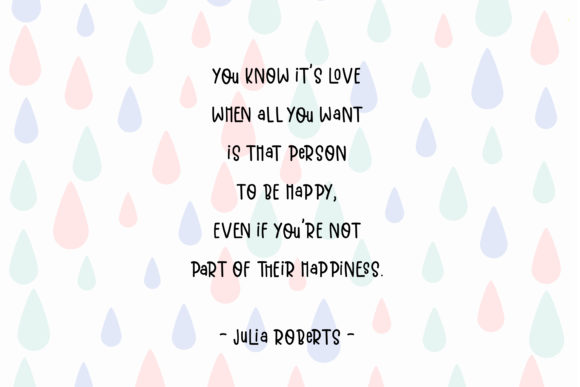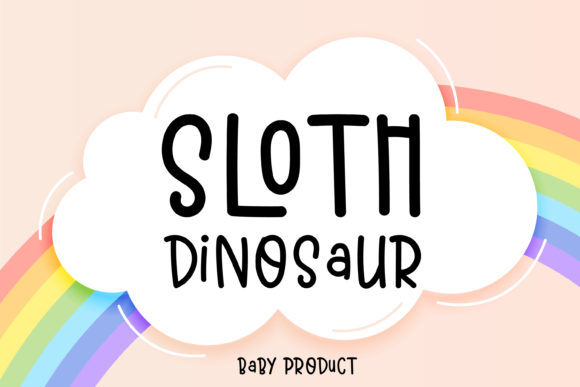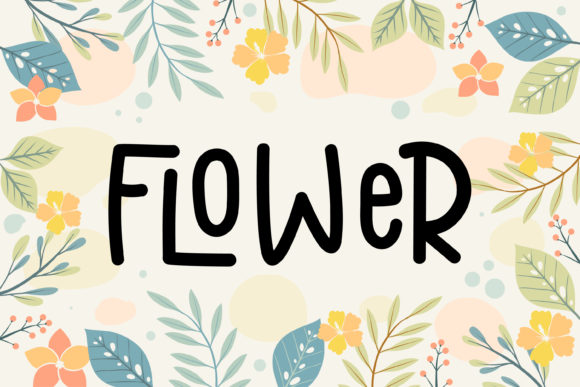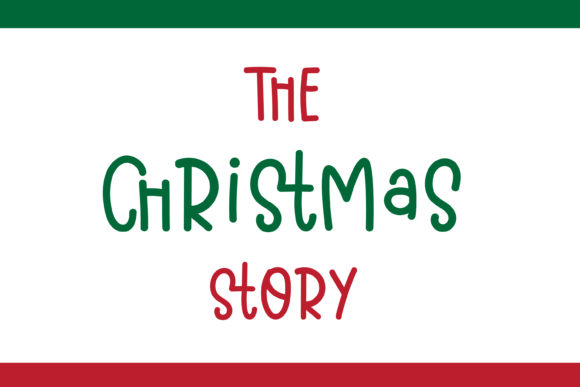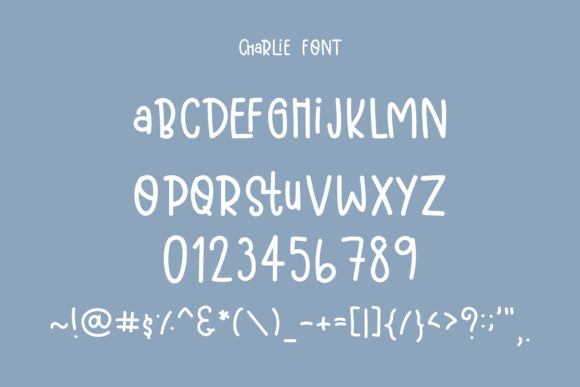
Charlie Font
About Charlie Font
Charlie is a simple and friendly handwritten font. This font works great on any children or school project. It also looks stunning on thank you cards, quotes, greeting cards, logos and every other design which needs a handwritten touch.